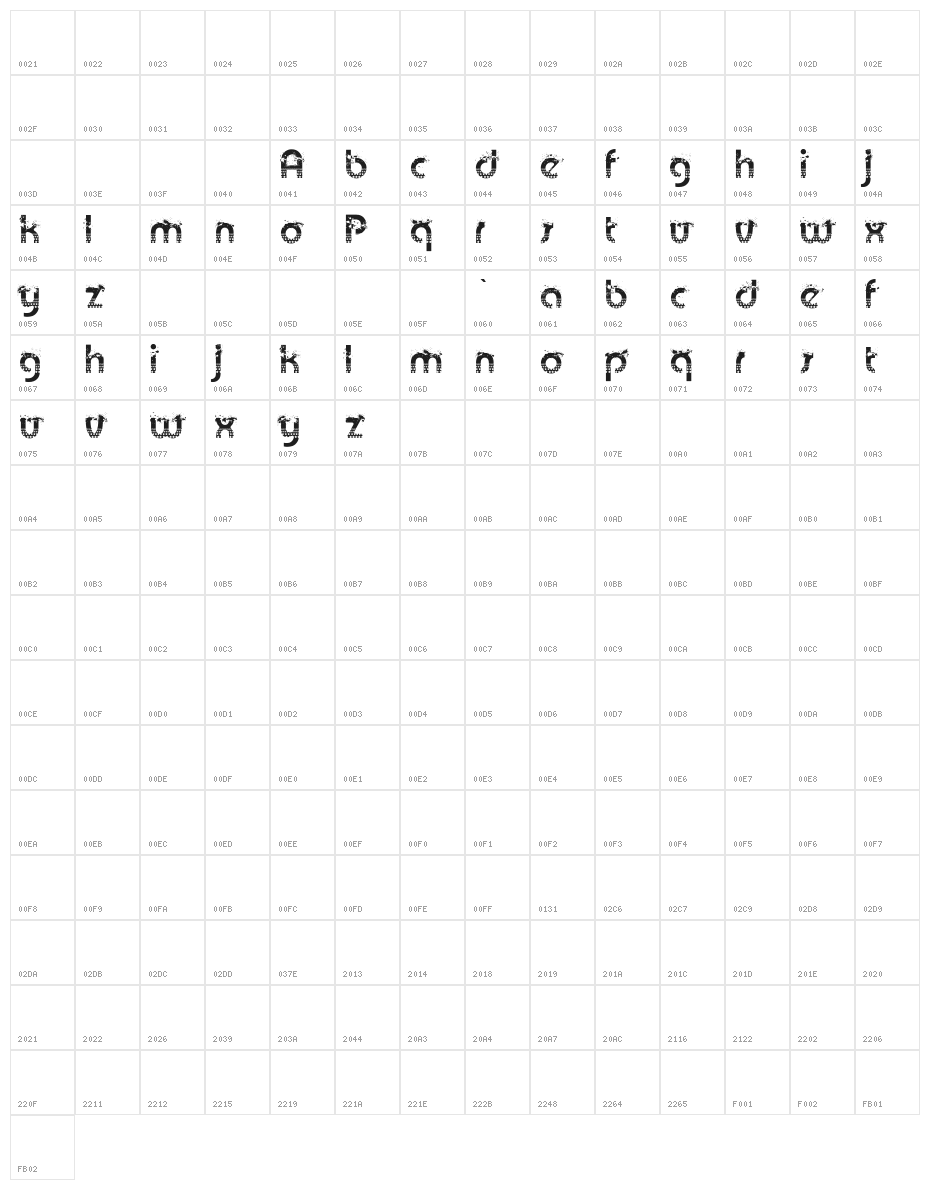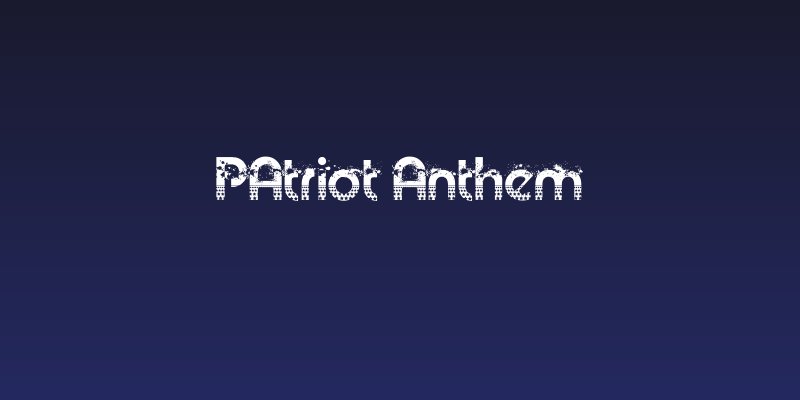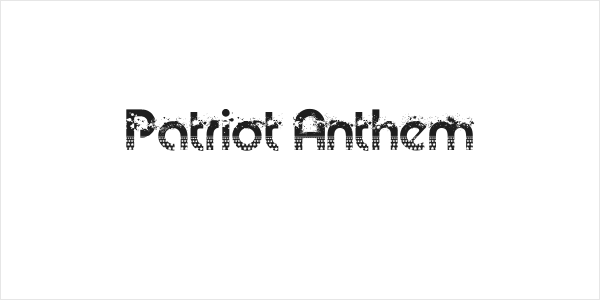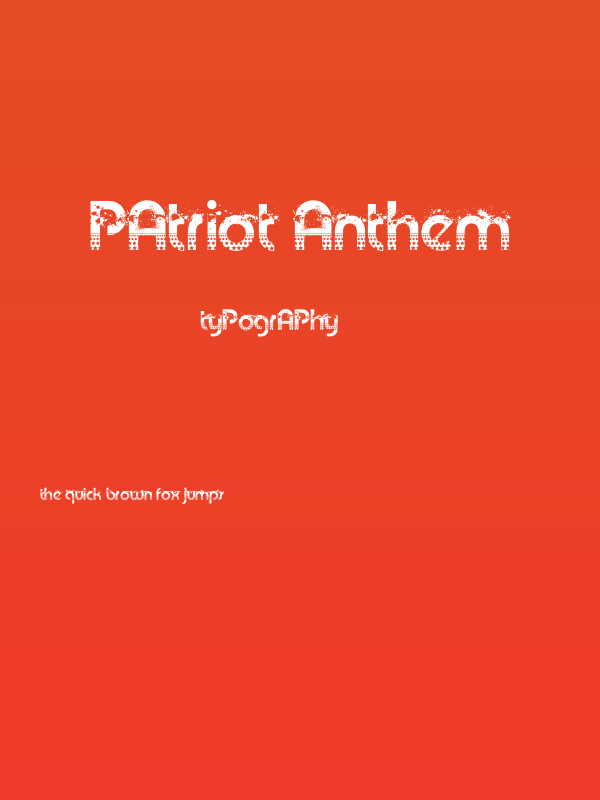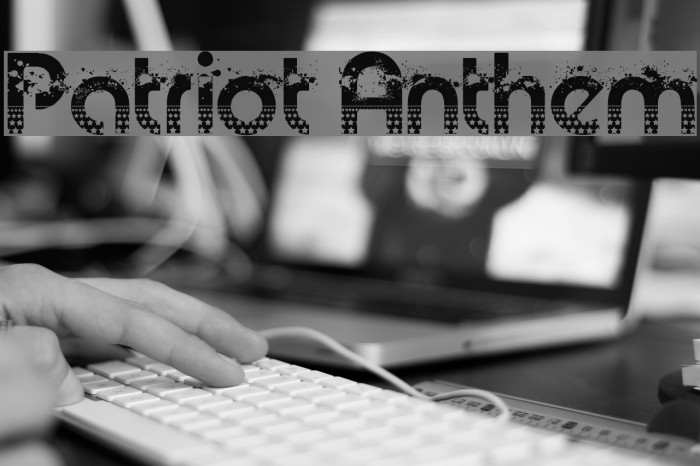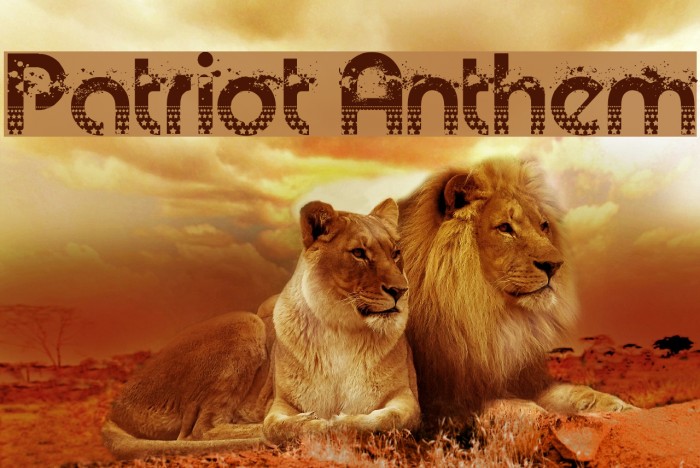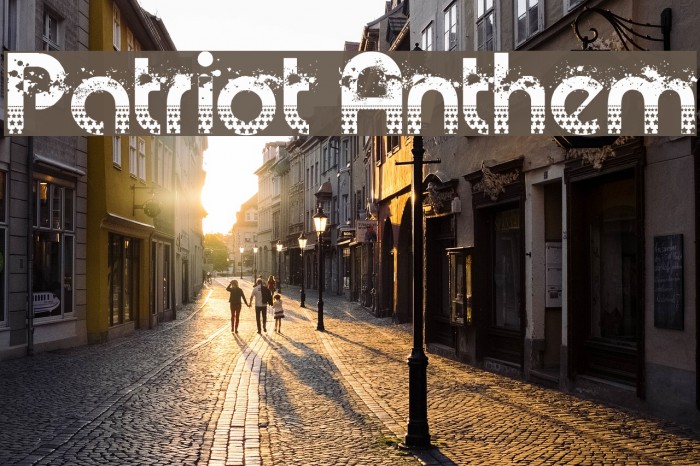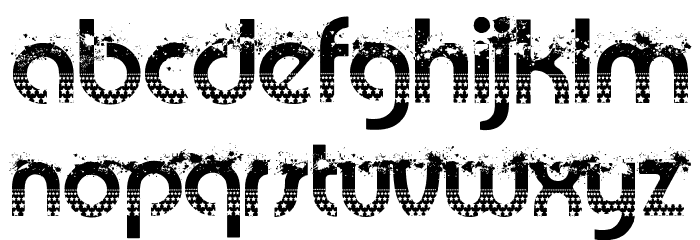
Patriot Anthem Font
Patriot Anthem Description
This font features a bold and dynamic design with a distinct grunge and distressed effect. The characters are adorned with a checkered pattern, giving them a unique and edgy appearance. The uppercase and lowercase letters maintain a consistent style, with rounded edges and a playful yet rebellious vibe. The font's decorative elements make it stand out, perfect for projects that require a strong visual impact. The numbers and special characters follow the same design principles, ensuring uniformity across all glyphs.
| Use Case | Logos, Headlines, Posters |
| Proposed Projects | Ideal for music album covers, event posters, urban-themed designs, and edgy branding projects. |